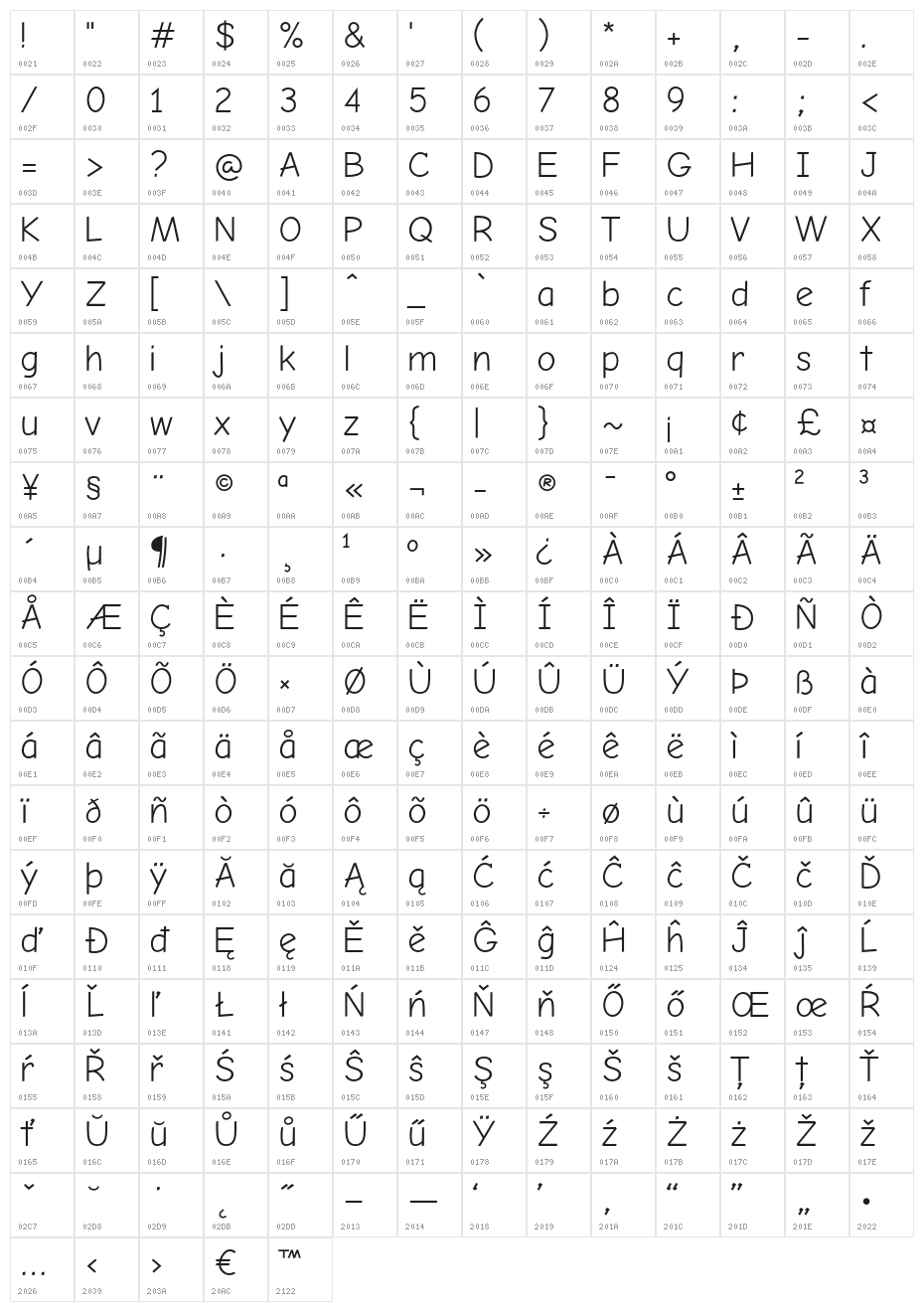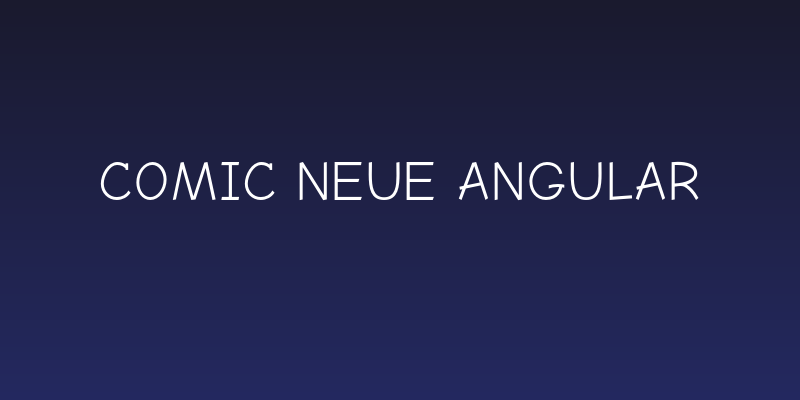
Comic Neue Angular Font
| おすすめプロジェクト | Ideal for comic books, children's books, casual branding, and playful advertising campaigns. |
Comic Neue Angular